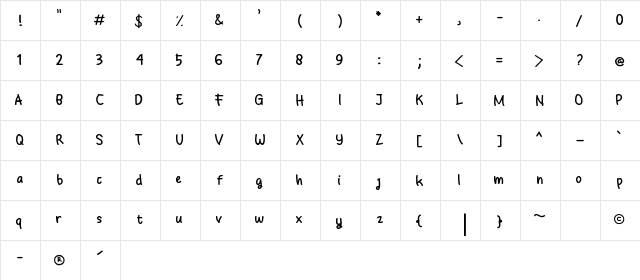
Babyground Regular Font Preview
Babyground Regular
Babyground Regular Font Details
Design Context for Babyground Typeface
Babyground softens its letterforms with rounded terminals, giving it an approachable, friendly quality that works well in consumer-facing and digital contexts.
Well-suited to UI design, mobile interfaces, and any brand that wants approachability without sacrificing clarity.
Font Pairing: Pairs well with a rounded or humanist sans for body copy, maintaining the friendly tone without relying on Babyground to carry extended reading.
Pro Tip: Use Babyground for UI elements, app interfaces, and anywhere a friendly, approachable tone needs to be maintained without sacrificing clarity.